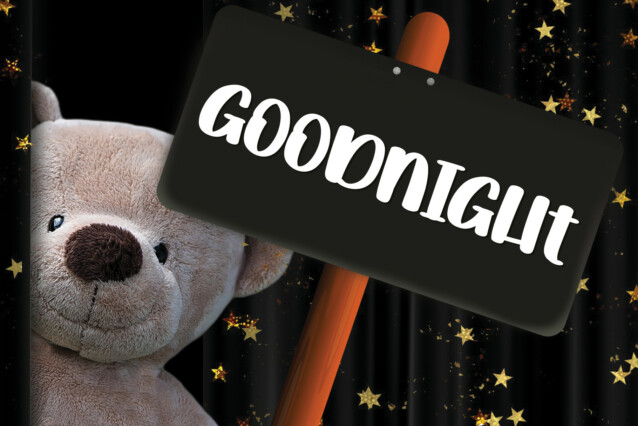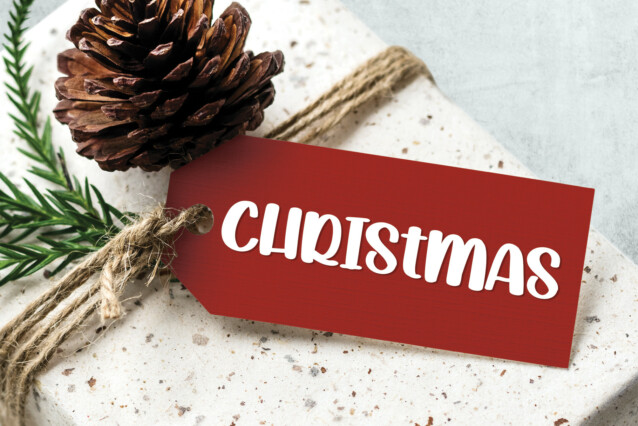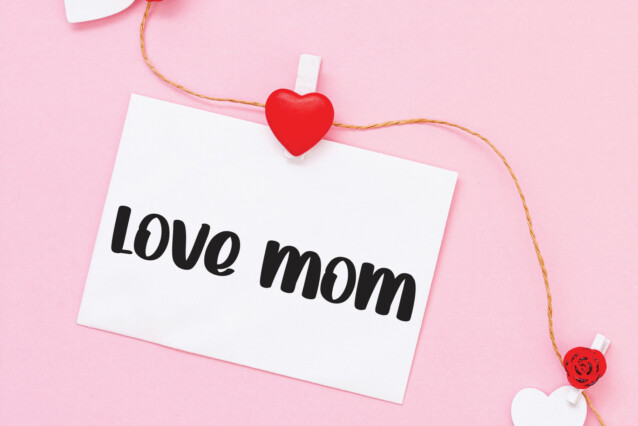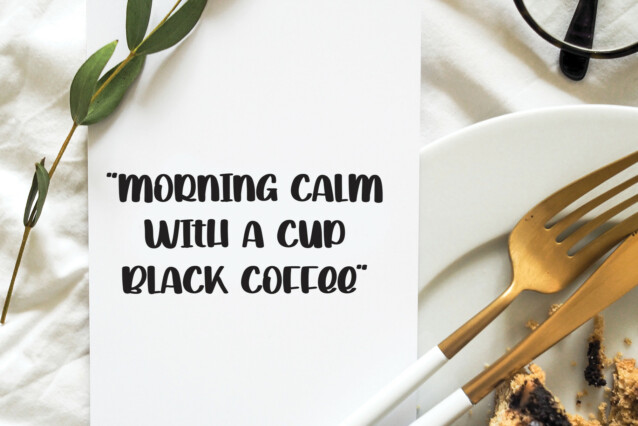
Playing Snow Display Font
Playing Snow Display Font is a fun and friendly handwritten display font. Add it confidently to your creative ideas and you will love the results!